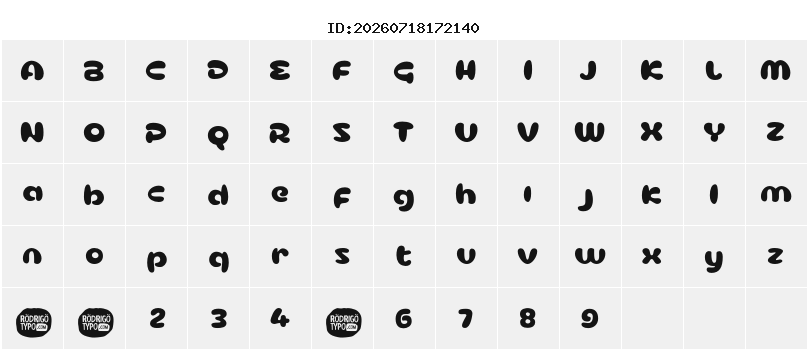
• Font Name: Cusco
About Cusco.otf
Cusco.otf is a modern, elegant sans-serif font designed for ultimate readability and visual harmony. Perfect for branding, headlines, web design, and print materials.